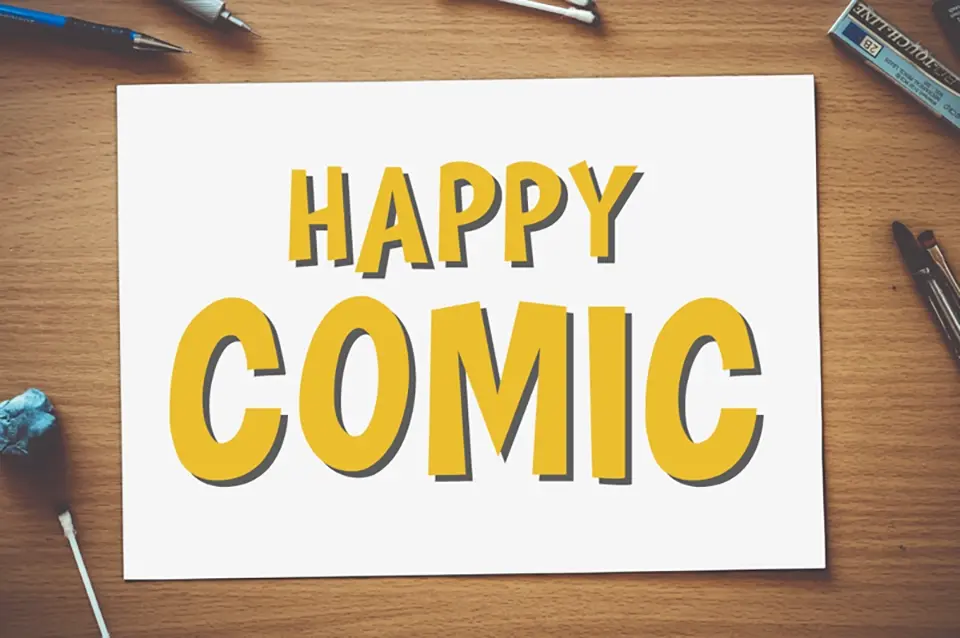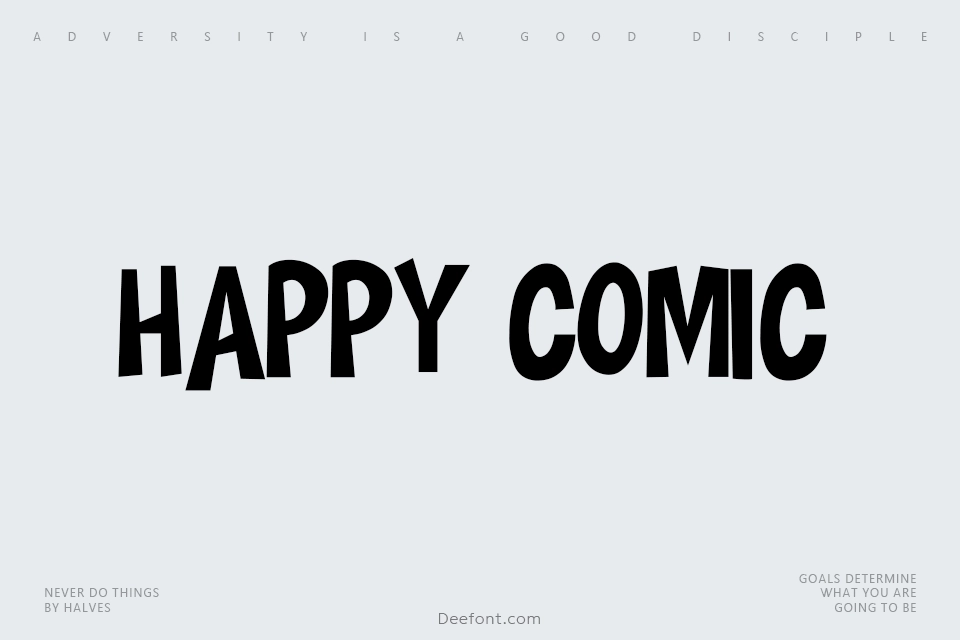
Happy Comic Font
Happy Comic is a playful and whimsical display typeface featuring bold, rounded letterforms with comic-style aesthetics. This cheerful font delivers a friendly, approachable appearance perfect for casual projects, children's materials, invitations, and creative designs. With its distinctive handwritten charm and expressive character, it brings a sense of fun and personality to any typographic endeavor.